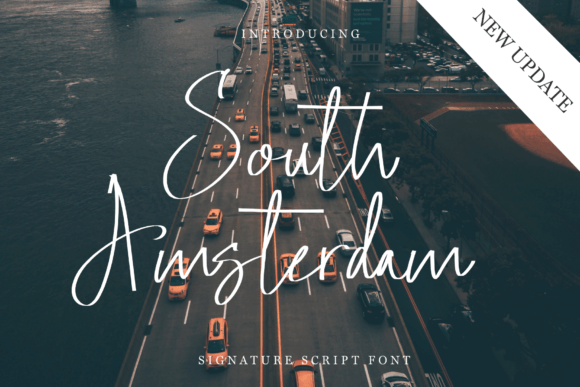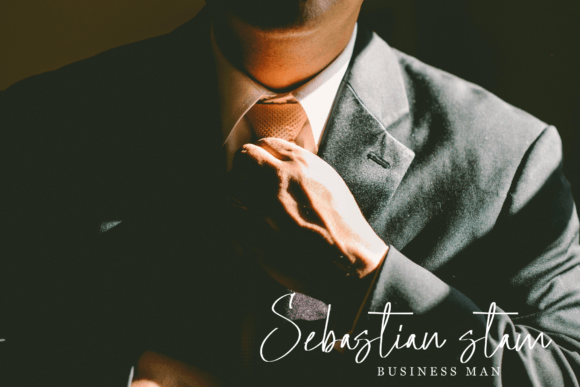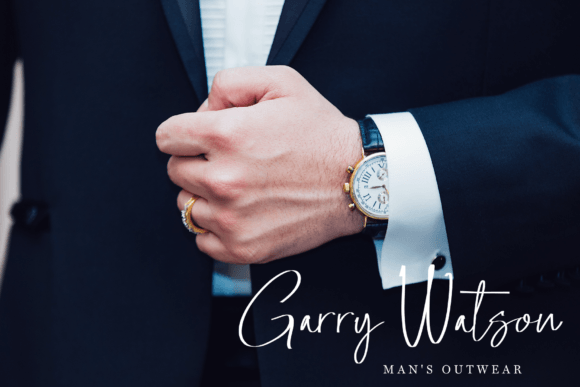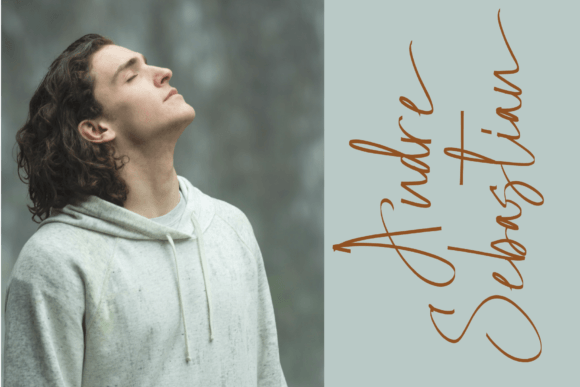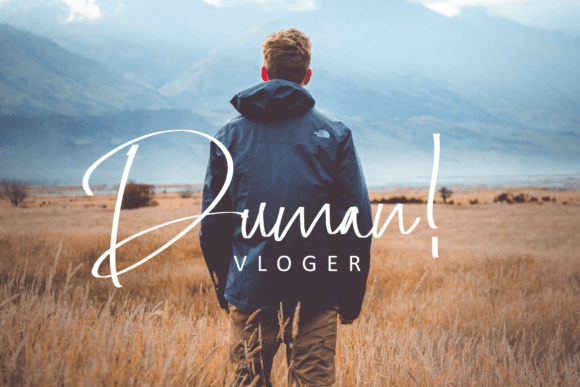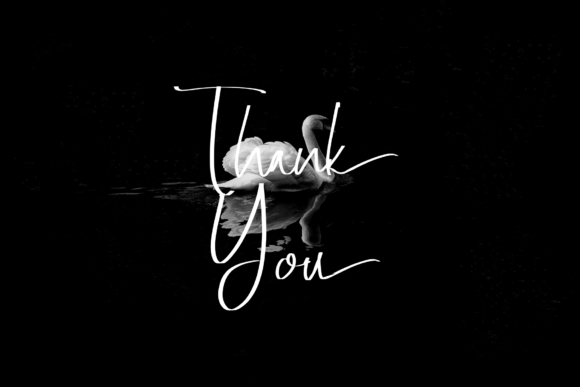
South Amsterdam Font
About South Amsterdam Font
South Amsterdam is a chic, trendy script font that emanates confidence and versatility. Its stylish alternates and ligatures make this font the perfect match for any project.